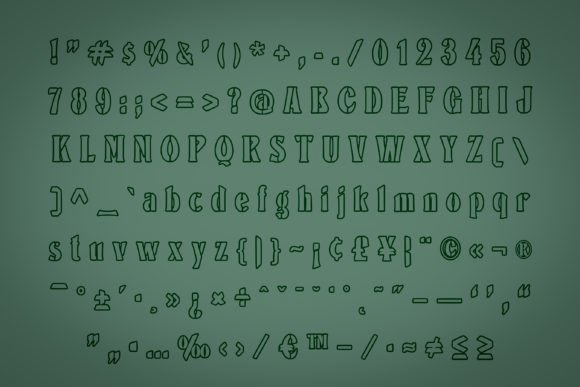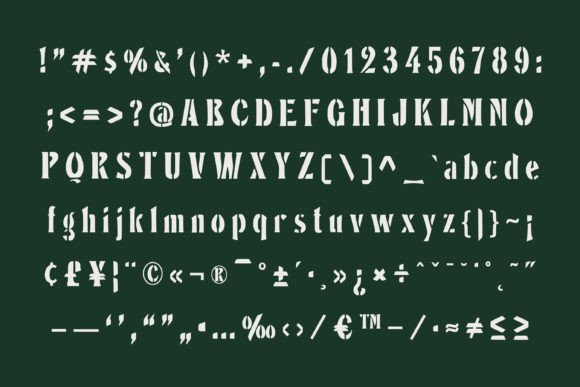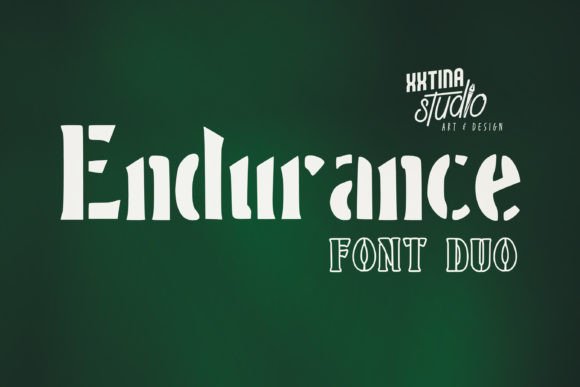
Introducing Endurance Font: The Cool and Modern Display Font You Need
Are you tired of using the same old fonts in your designs? Do you want to add a touch of personality and whimsy to your projects? Look no further than Endurance Font, a cool and modern display font that’s sure to brighten up your designs. In this article, we’ll take a closer look at Endurance Font, its features, and how you can use it to take your designs to the next level.
What is Endurance Font?
Endurance Font is a modern display font that’s designed to add a touch of personality to your designs. It’s a cool and quirky font that’s perfect for designers, crafters, and anyone looking to add some excitement to their projects. With its unique and whimsical style, Endurance Font is sure to make your designs stand out from the crowd.
Key Features of Endurance Font
So, what makes Endurance Font so special? Here are some of its key features:
- Cool and modern design: Endurance Font has a sleek and modern design that’s perfect for contemporary designs.
- Whimsical and quirky: This font has a playful and quirky personality that’s sure to add some excitement to your designs.
- Display font: Endurance Font is designed specifically for display use, making it perfect for headlines, titles, and other prominent text elements.
- Easy to read: Despite its unique design, Endurance Font is easy to read, even at smaller sizes.
How to Use Endurance Font in Your Designs
Endurance Font is a versatile font that can be used in a variety of design projects. Here are some ideas to get you started:
- Headlines and titles: Use Endurance Font to create eye-catching headlines and titles that grab attention.
- Logos and branding: This font is perfect for creating unique and memorable logos and branding elements.
- Social media graphics: Add some personality to your social media graphics with Endurance Font.
- Posters and flyers: Use Endurance Font to create bold and eye-catching posters and flyers.
Why Choose Endurance Font?
So, why should you choose Endurance Font for your designs? Here are just a few reasons:
- Unique and distinctive: Endurance Font is a one-of-a-kind font that’s sure to make your designs stand out.
- High-quality design: This font is designed with high-quality craftsmanship, ensuring that it looks great in any design.
Tips for Getting the Most Out of Endurance Font
Here are some tips for getting the most out of Endurance Font:
- Experiment with different sizes: Endurance Font looks great at a variety of sizes, so don’t be afraid to experiment.
- Pair it with other fonts: Try pairing Endurance Font with other fonts to create a unique and interesting design.
- Use it consistently: Use Endurance Font consistently throughout your design to create a cohesive look.
In conclusion, Endurance Font is a cool and modern display font that’s perfect for designers, crafters, and anyone looking to add some excitement to their projects. With its unique and whimsical style, Endurance Font is sure to brighten up your designs and make them stand out from the crowd. So why wait? Download Endurance Font today and start creating amazing designs!
Endurance Font is a versatile and high-quality font that’s perfect for a wide range of design projects. Whether you’re a professional designer or a crafter, you can add Endurance Font to your projects with confidence. So go ahead, download Endurance Font, and see the difference it can make in your designs.